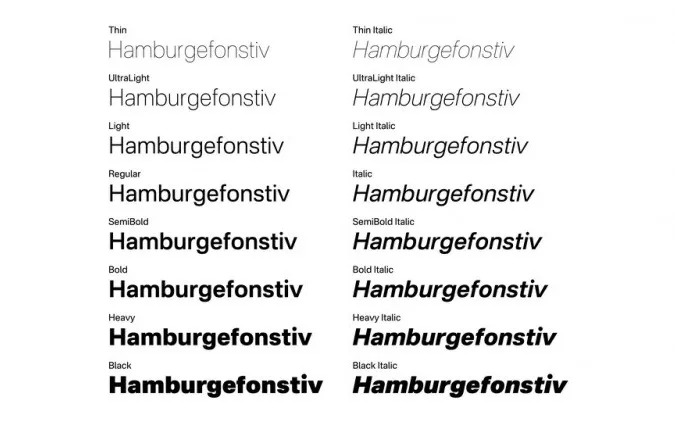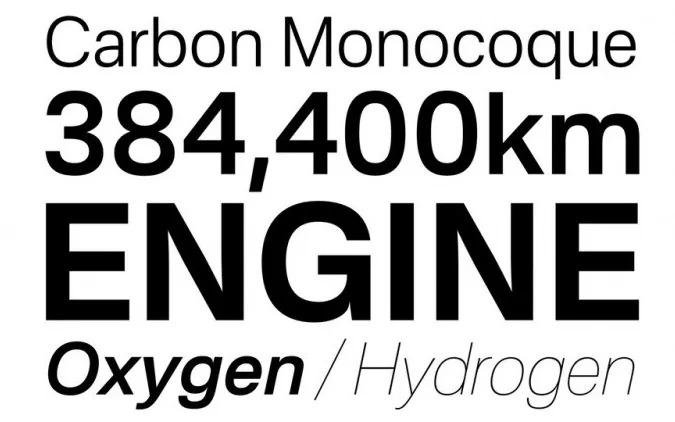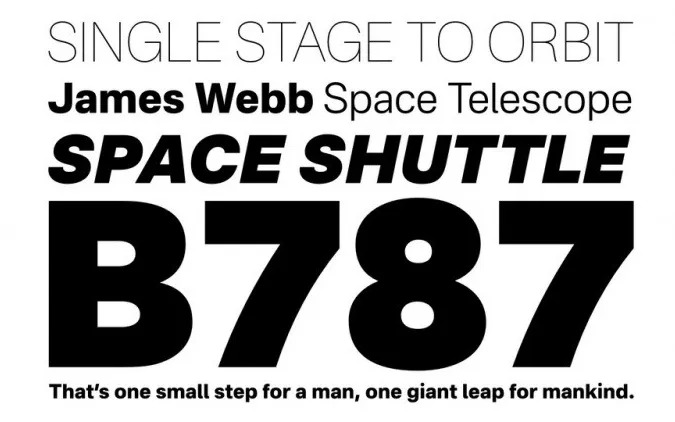
Nacelle Font Family
Nacelle Sans Serif Font
This is a clean and classy sans serif font that can add value to every design. Nacelle’s basic concept is “creating a neo-grotesque that is easy to see and identify on the UI” with the metrics and details adjusted to create a more natural shape.